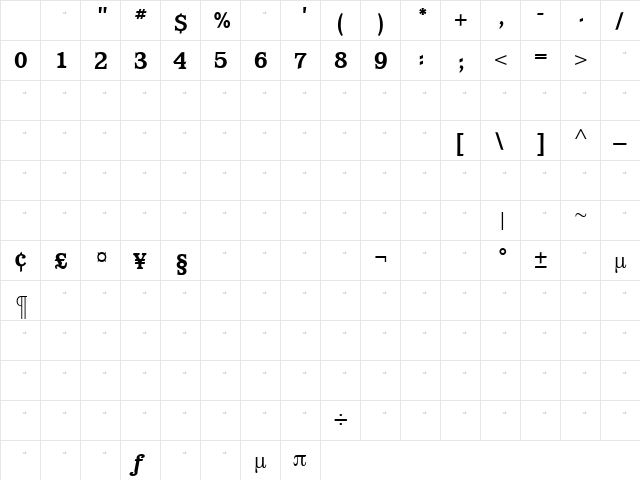
Complete WaverlyExtraBoldTab Roman glyph index. Displaying only characters natively supported by WaverlyExtraBoldTab Roman font.
WaverlyExtraBoldTab is a composed and adaptable typeface that performs quietly and consistently across a wide range of design contexts. Its bold stroke weight gives it real presence on the page.